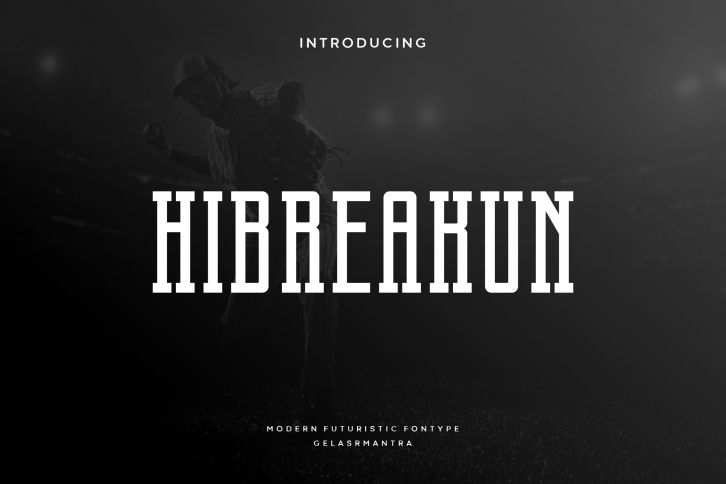
Hibreakun font is a cool and unique all-caps serif font, perfect for something related to food, children, kids illustrations, book titles, website titles, writing on video, or anything that needs solemn and unique typography.